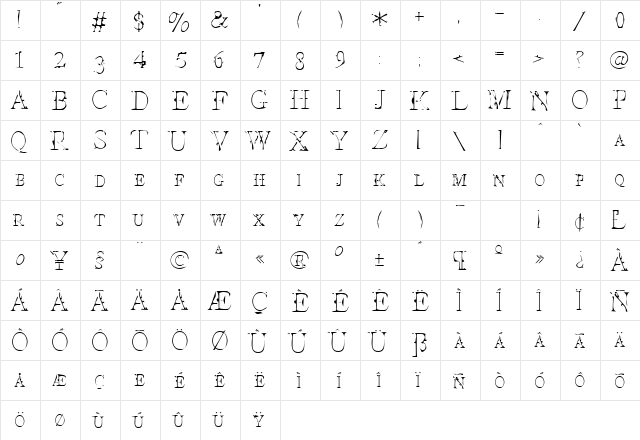
Interim SmallCaps
Design Context for Interim Typeface
Interim takes a measured approach to typography — its balanced proportions and neutral character make it a reliable workhorse for both digital and print work.